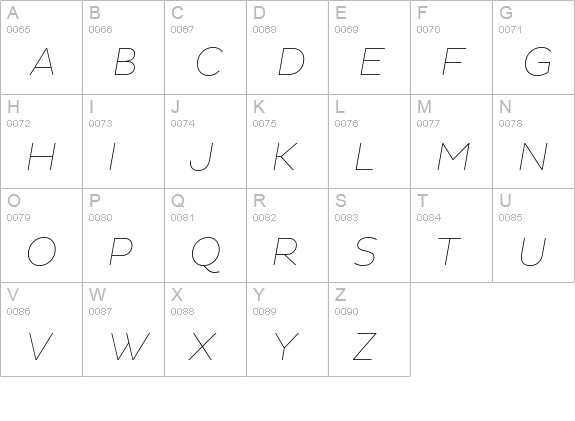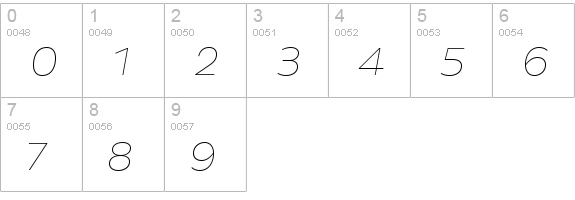
Pluto Sans Thin Italic Font Details
Pluto Sans Thin Italic is a delicate, low-contrast, italic variant in the Pluto typeface family \xE2\x80\x94 well suited to fashion editorial, minimal branding, and high-contrast display.
Introducing Pluto Sans Thin Italic font, a sleek and modern typeface designed for those who appreciate elegance and sophistication in their designs. The delicate strokes and slanted angle of the italic style add a touch of flair and elegance to any project. This font is perfect for creating a sense of refinement and style in branding, advertising, editorial design, and more. Its thin weight gives it a delicate and airy feel, while the italic style adds a touch of dynamism and movement. Best of all, Pluto Sans Thin Italic font is available for free download at FontsMarket.com. Now you can add this stunning typeface to your design arsenal without breaking the bank. Don't miss out on this opportunity to enhance your projects with the beauty and versatility of Pluto Sans Thin Italic font. Download it today and start creating stunning designs that stand out from the crowd.